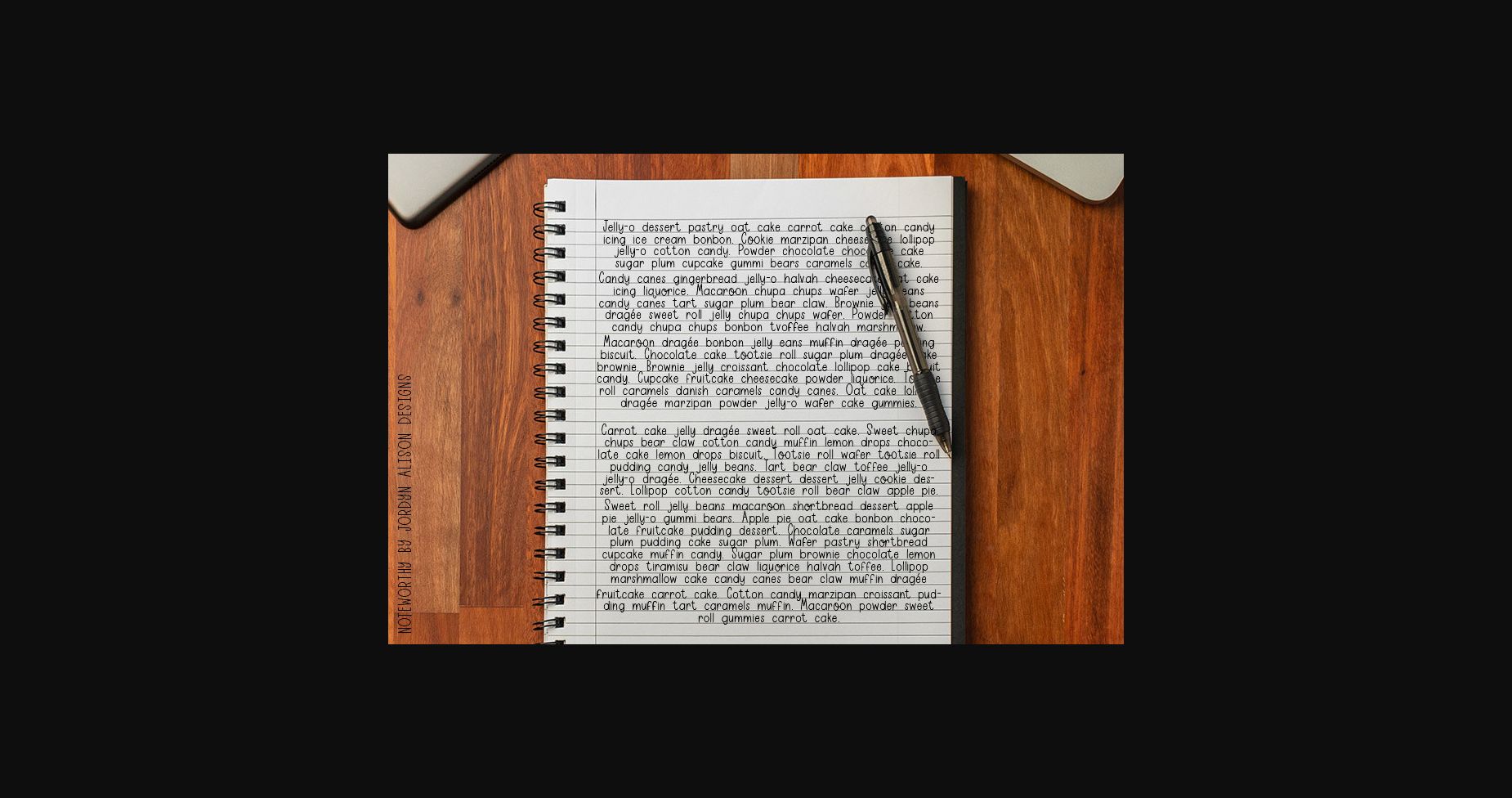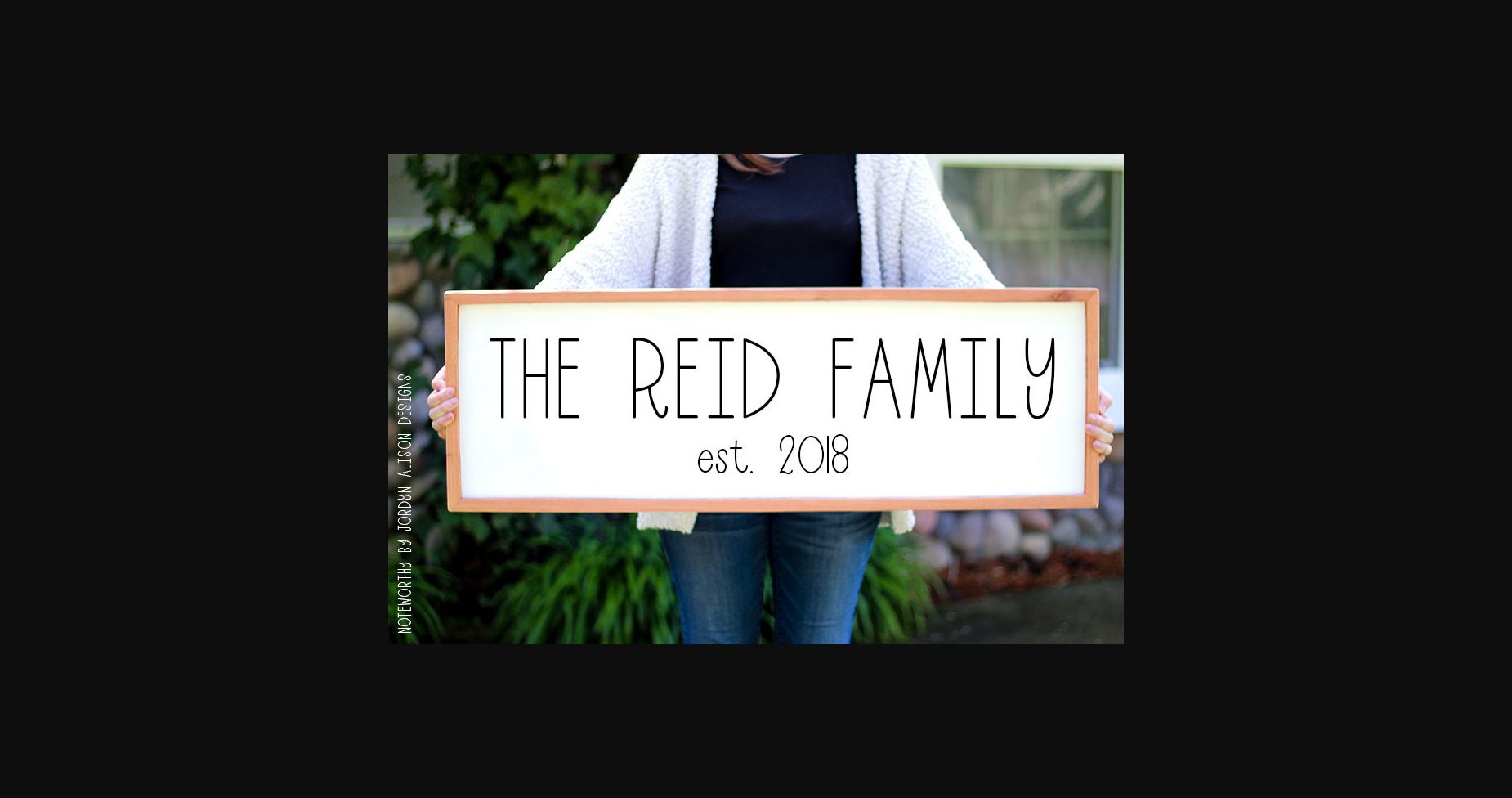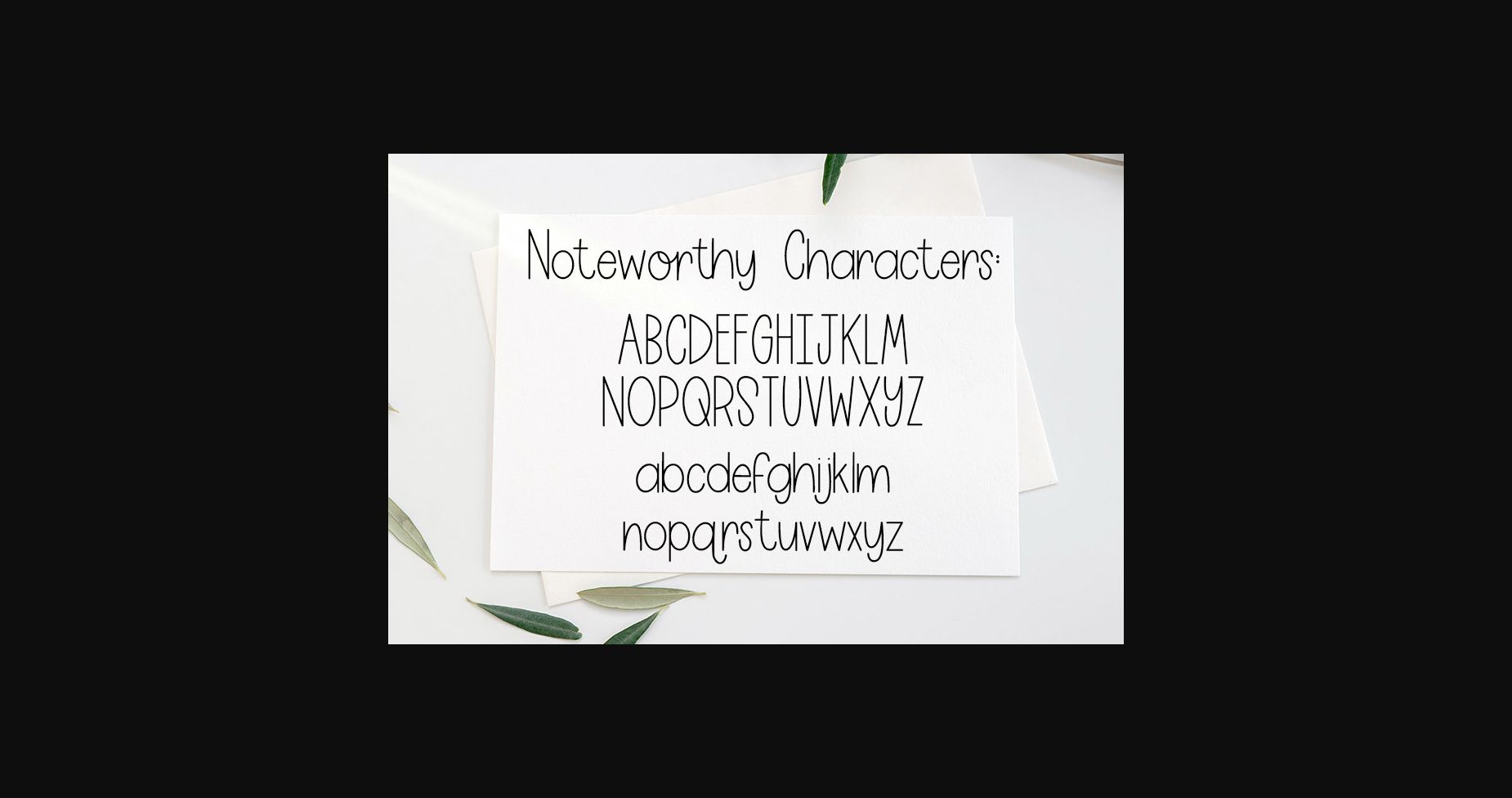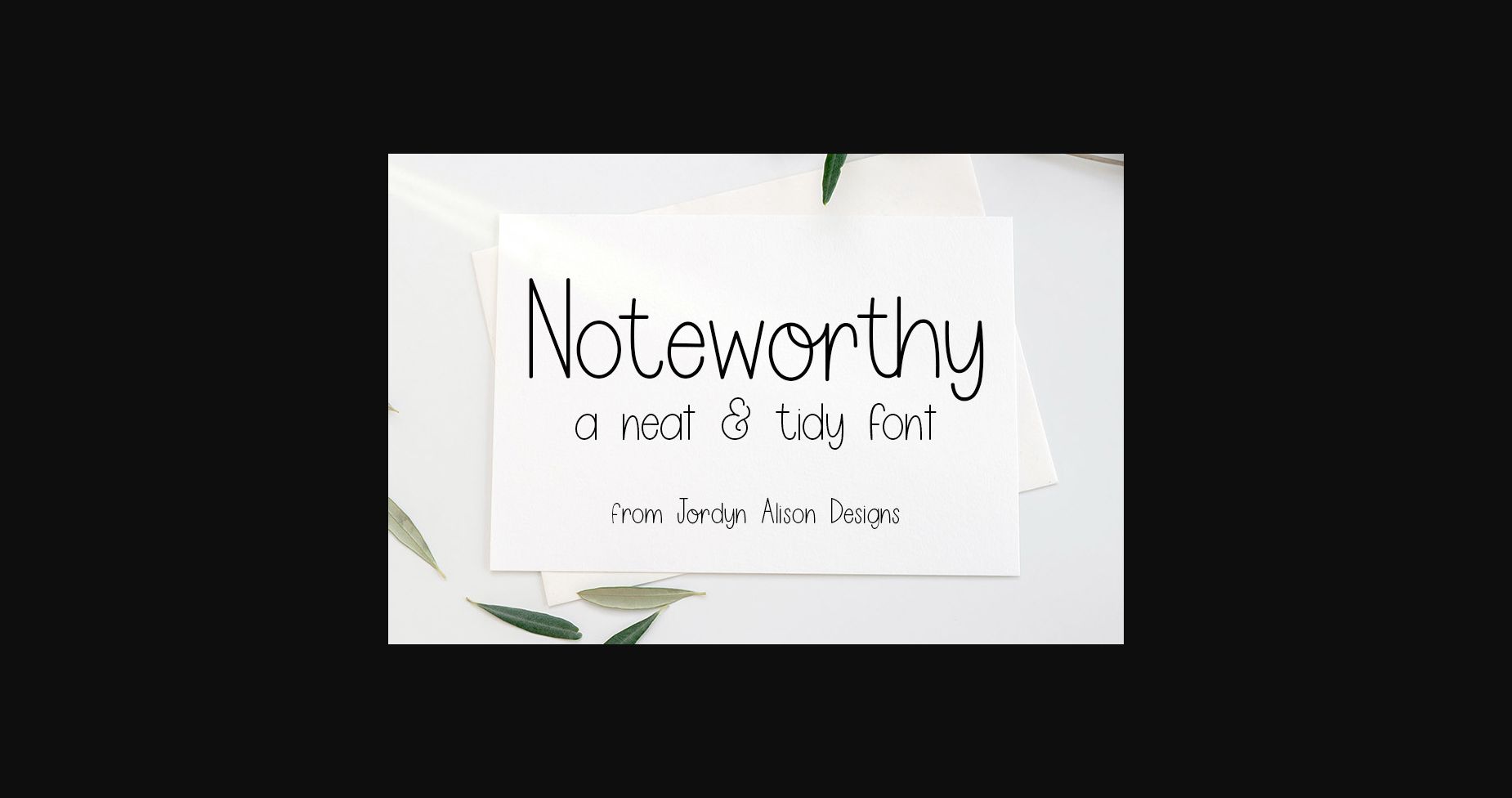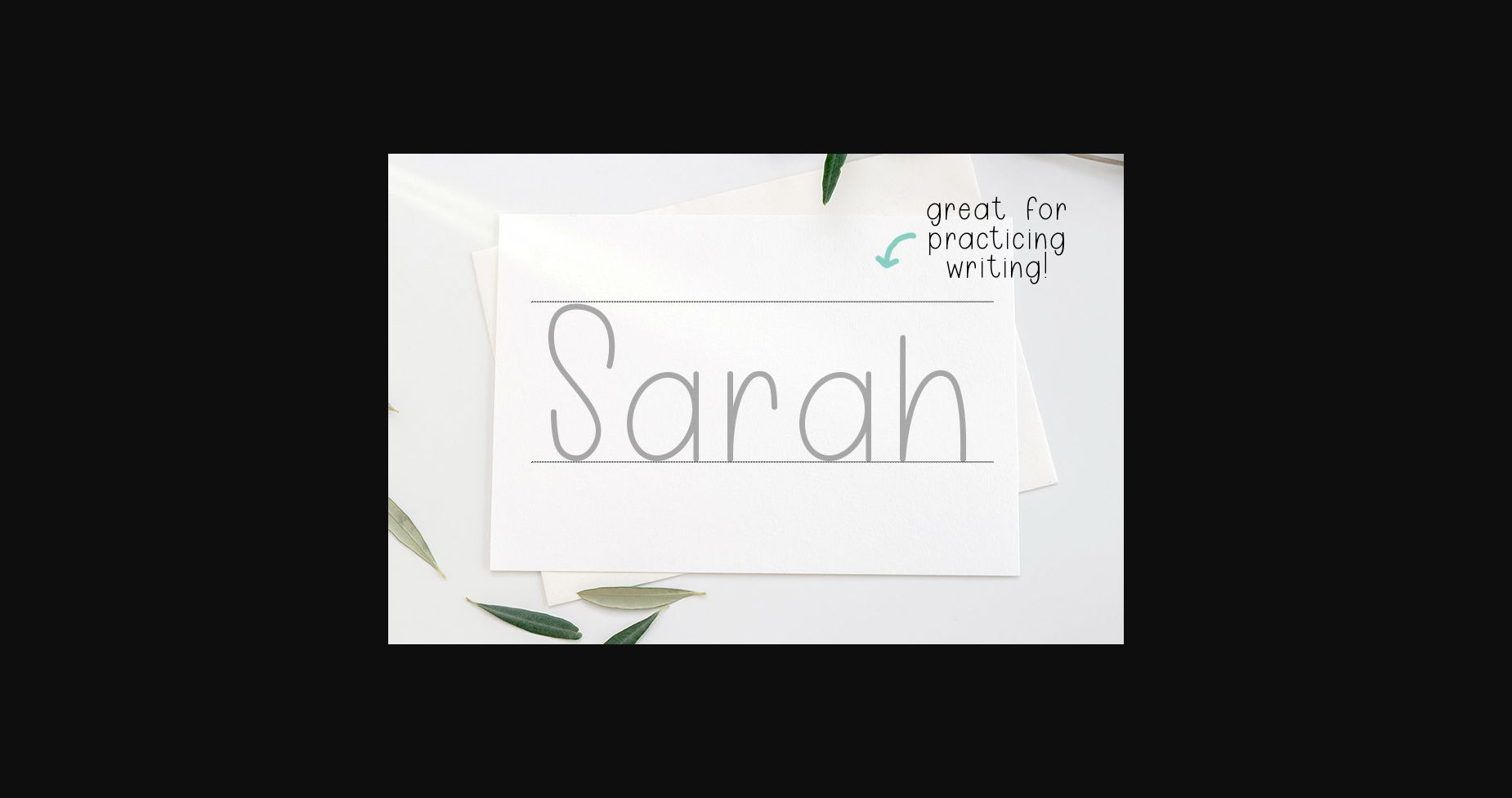
About Noteworthy Font
Noteworthy is a neat and tidy handwritten sans serif font. It’s perfect for labeling your pantry, notebooks, or toy room. If you’re a digital note-taker, then this font is going to be your best friend. It’s the perfect complimentary font for all of your design needs!